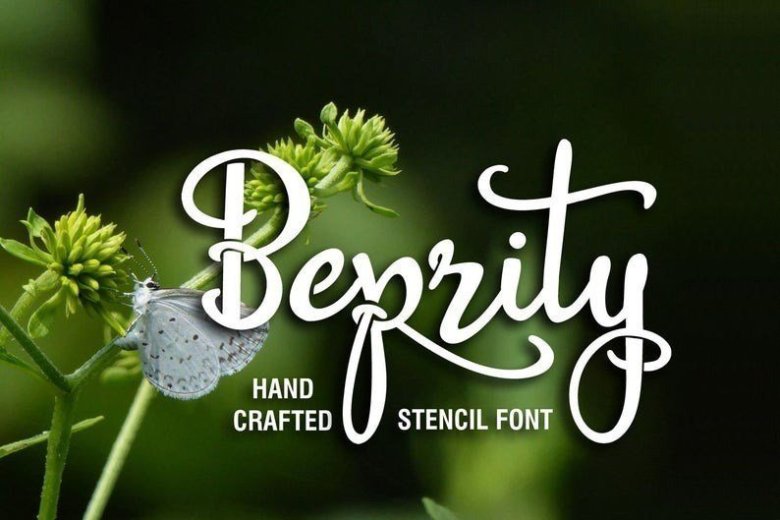
Beprity Stencil Calligraphy Script Font
Beprity Stencil is a calligraphy script font without closed loops on the characters, so you can create a truly unique and original looking design. Download and use across a huge range of programs such as Adobe programs, Corel programs, Cricut and many others.
This listing comes with Beprity Stencil Font, which has uppercase, Lowercase, Numbers, Punctuation, and Ligatures. This font is perfect for crafting and looks awesome on T-shirts, mugs, cards, invitations and so much more! This font is free for PERSONAL USE.